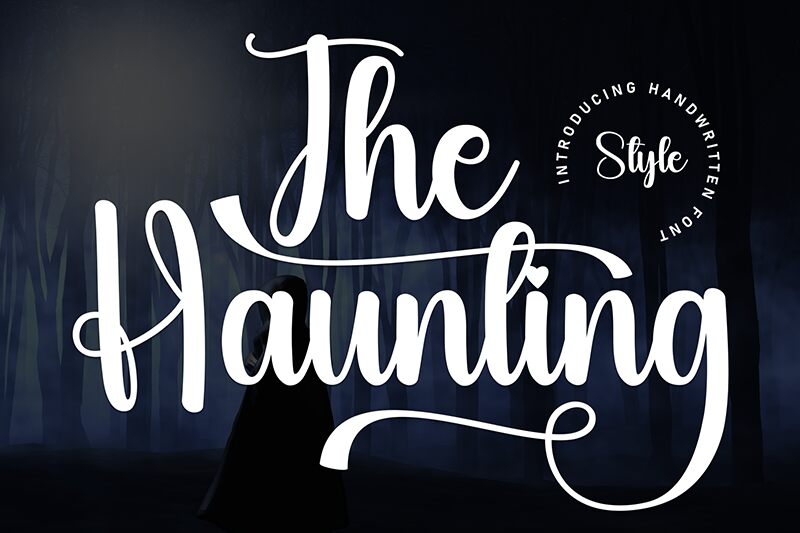
The Haunting font by Scratchones is a free script font capturing the essence of mystery and elegance in its flowing, expressive letterforms. It seamlessly merges dramatic movement with a sophisticated and whimsical touch, offering an ornate aesthetic that’s both artistic and modern. The dynamic nature of this font makes it a captivating choice for a variety of creative projects.
Perfect for designing book covers, invitations, and greeting cards, The Haunting also enhances branding materials like logos, packaging, and product labels. Elevate your posters, social media graphics, or website elements with this font’s unique and enticing style.